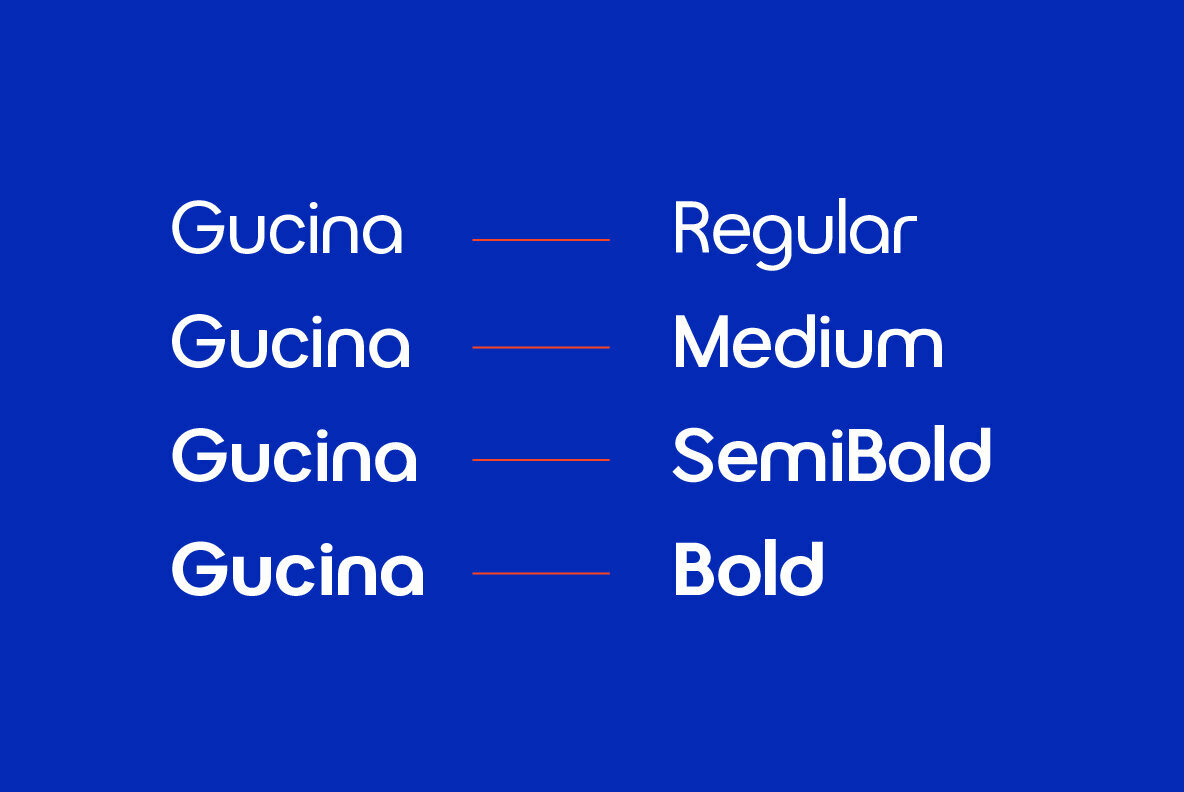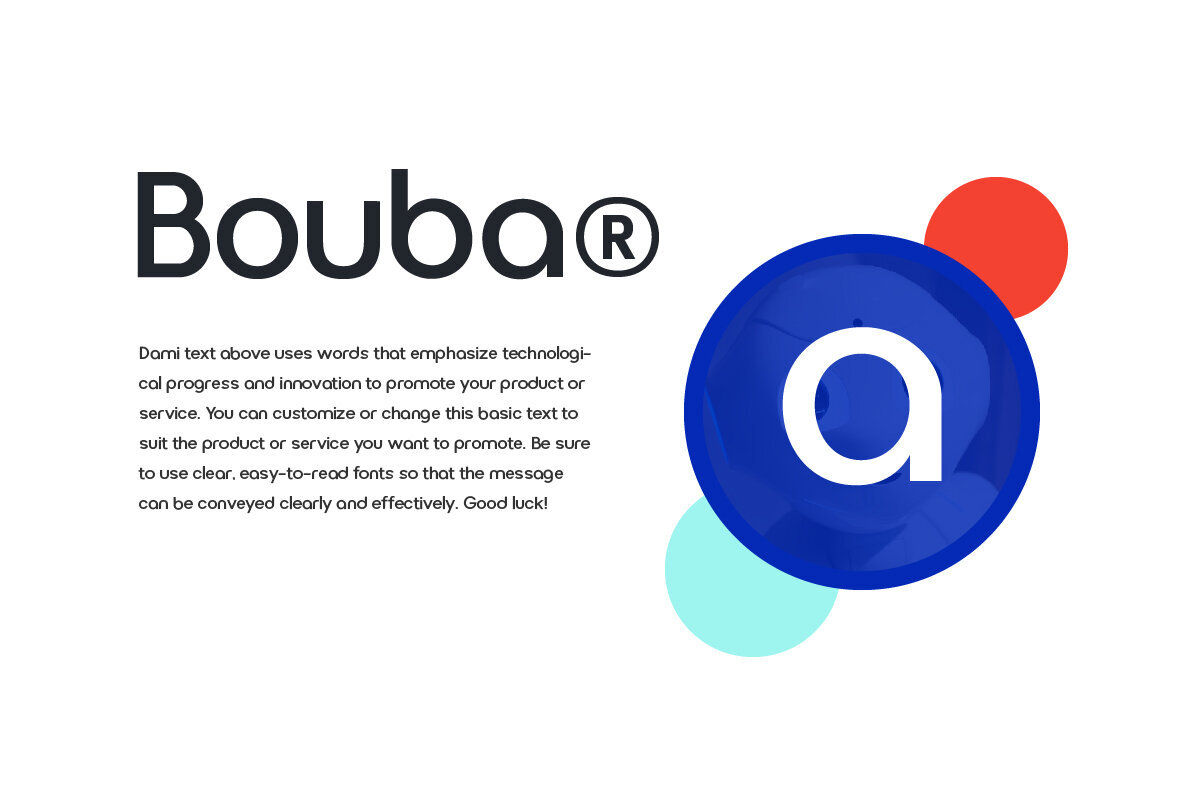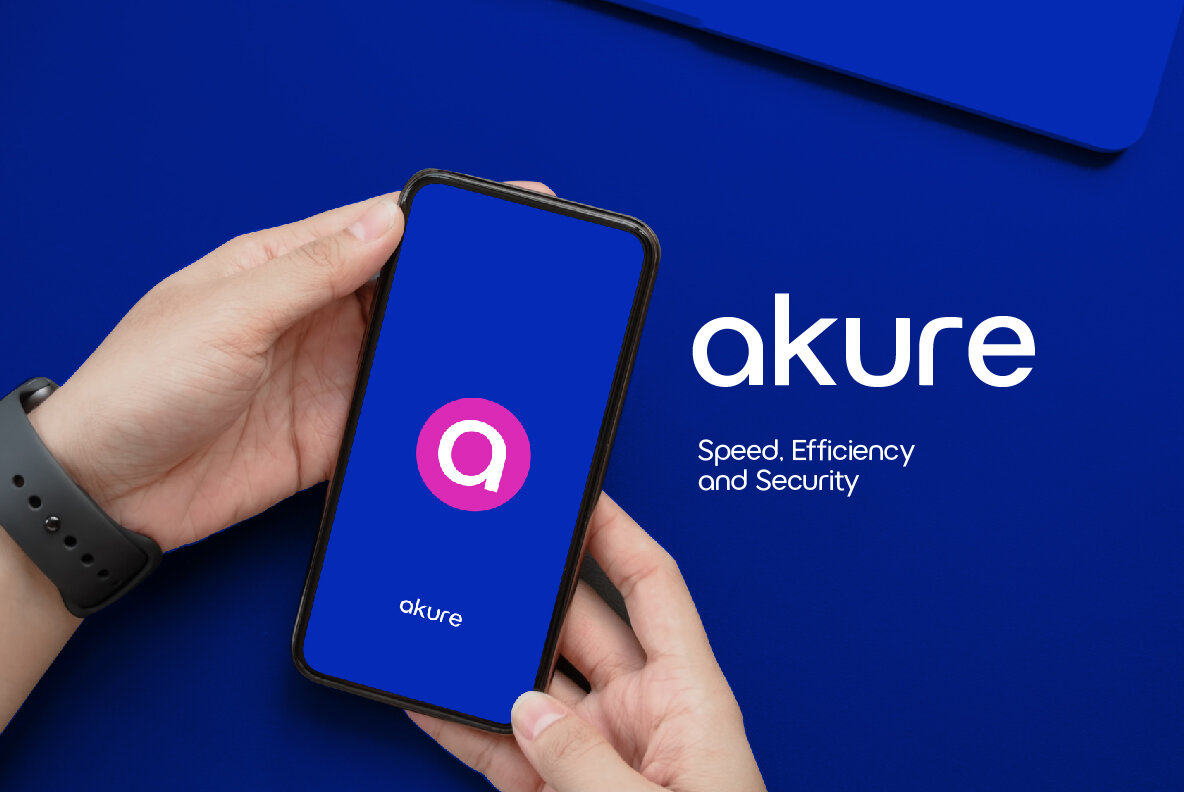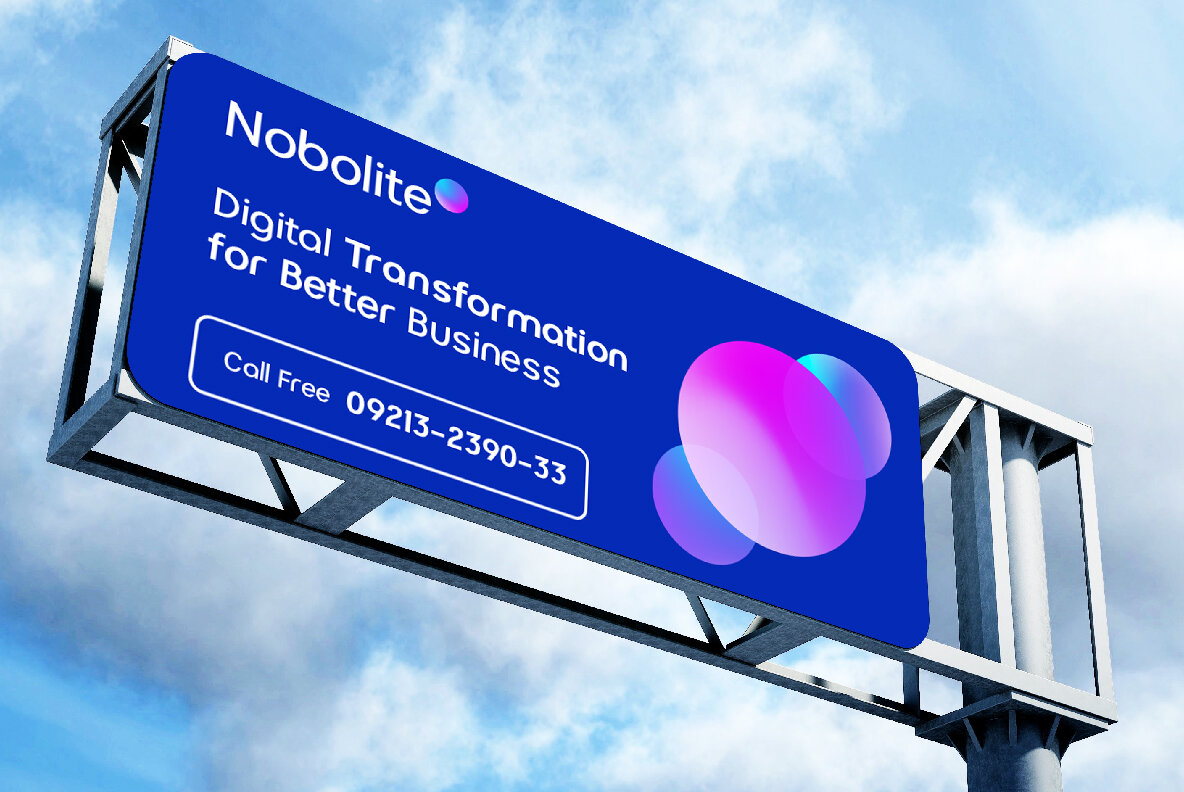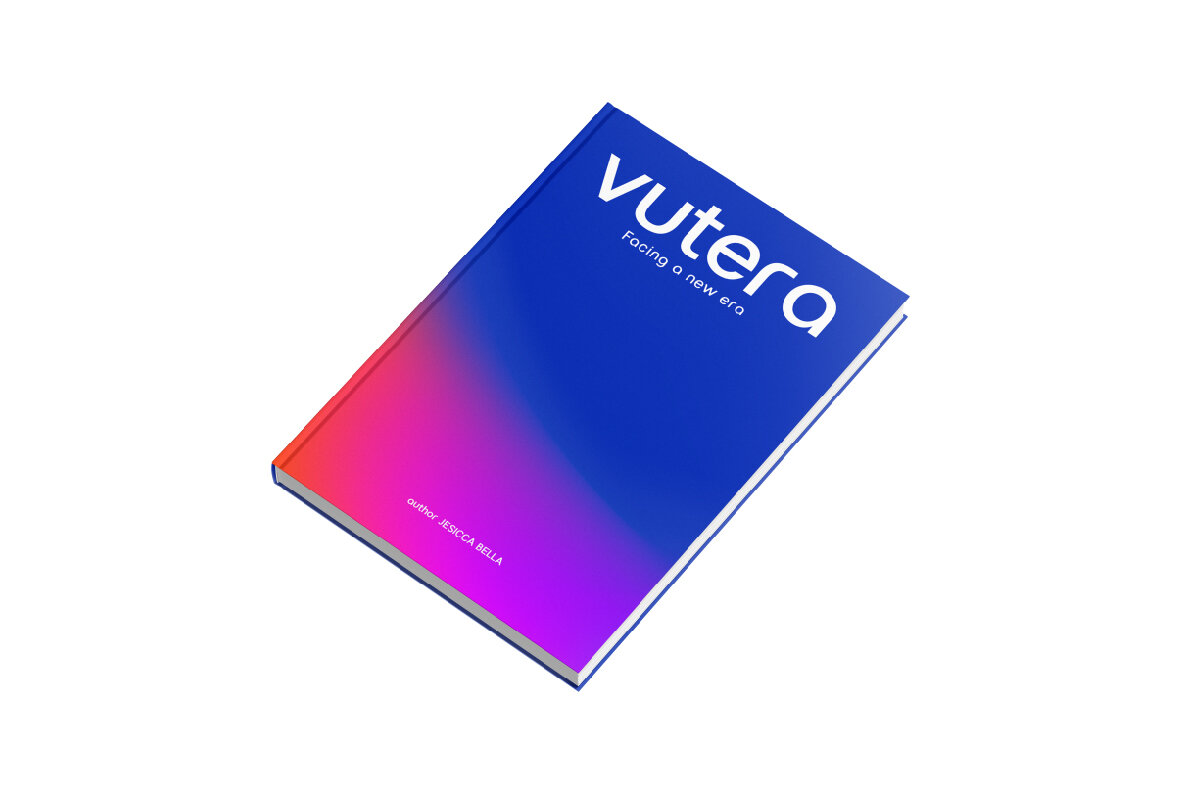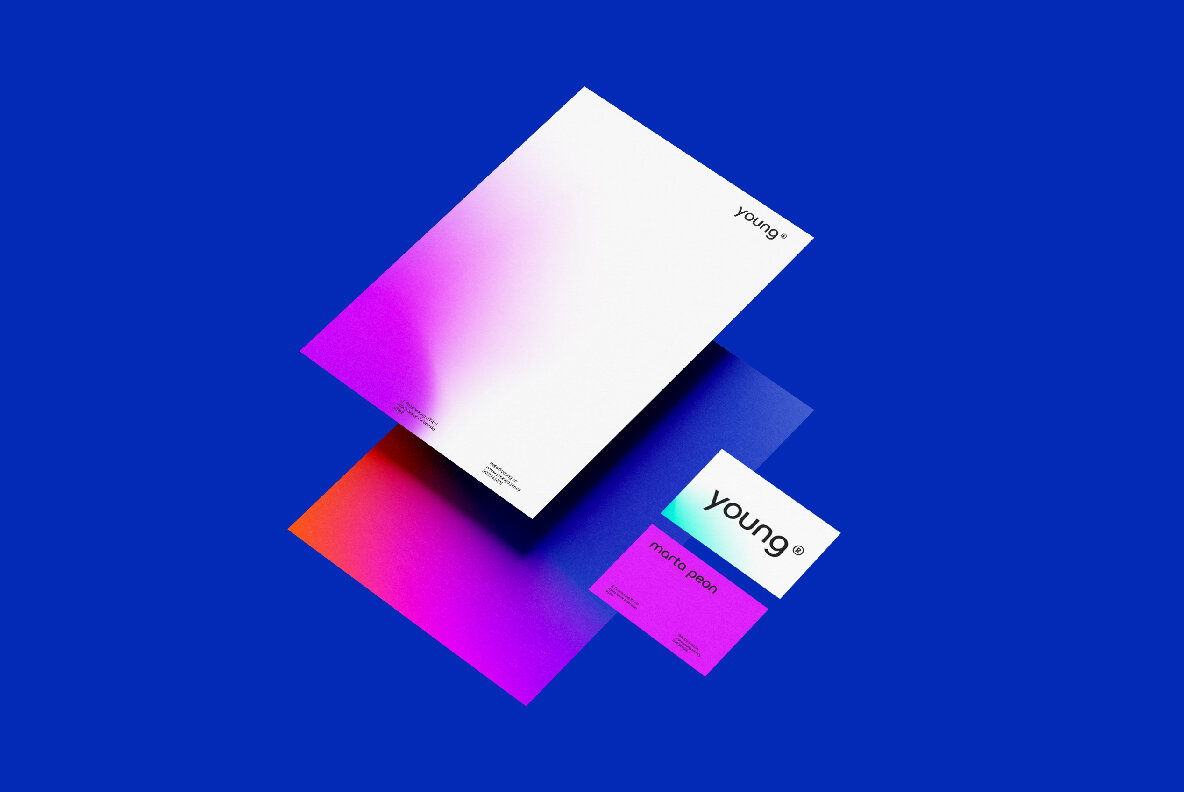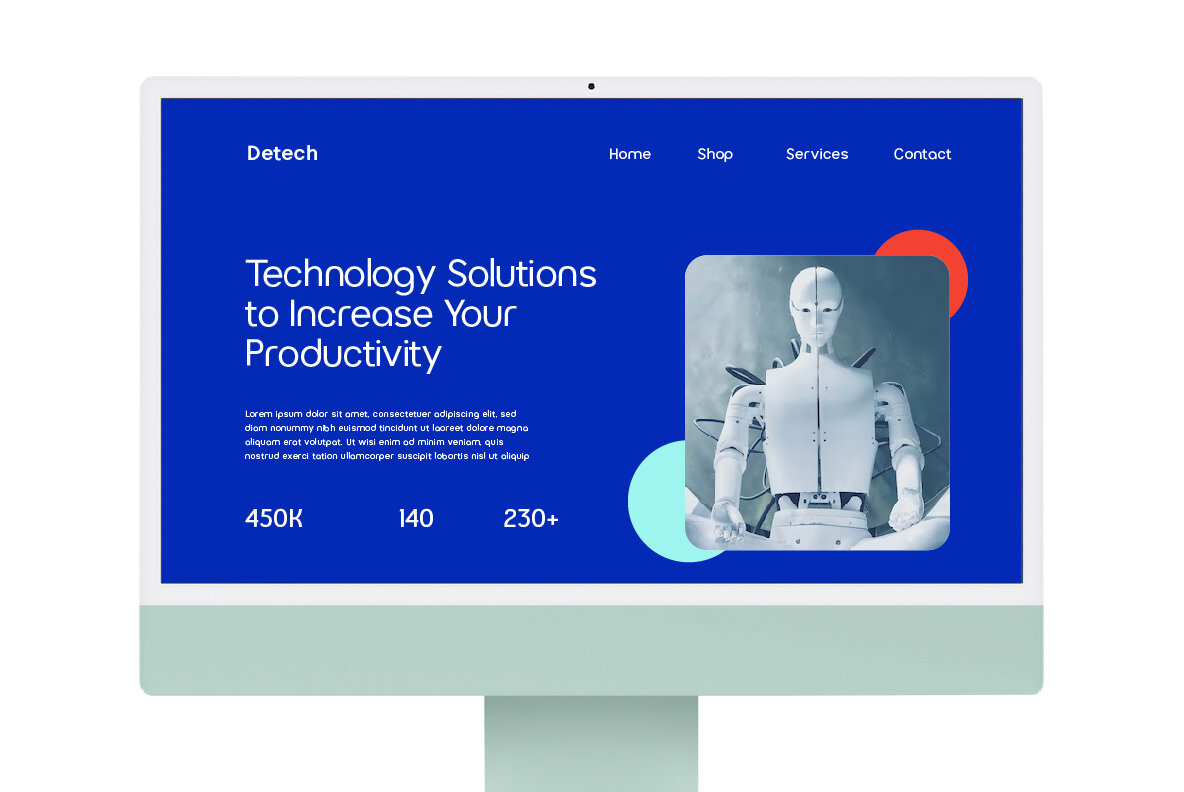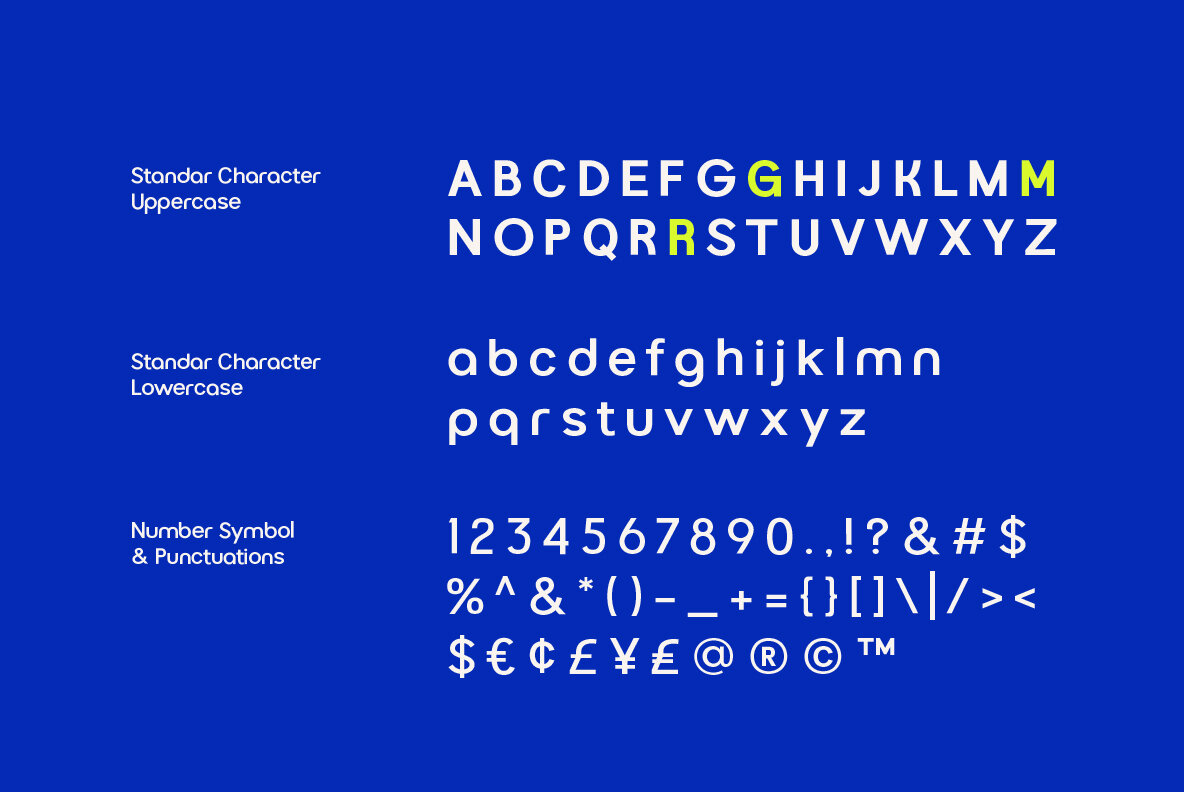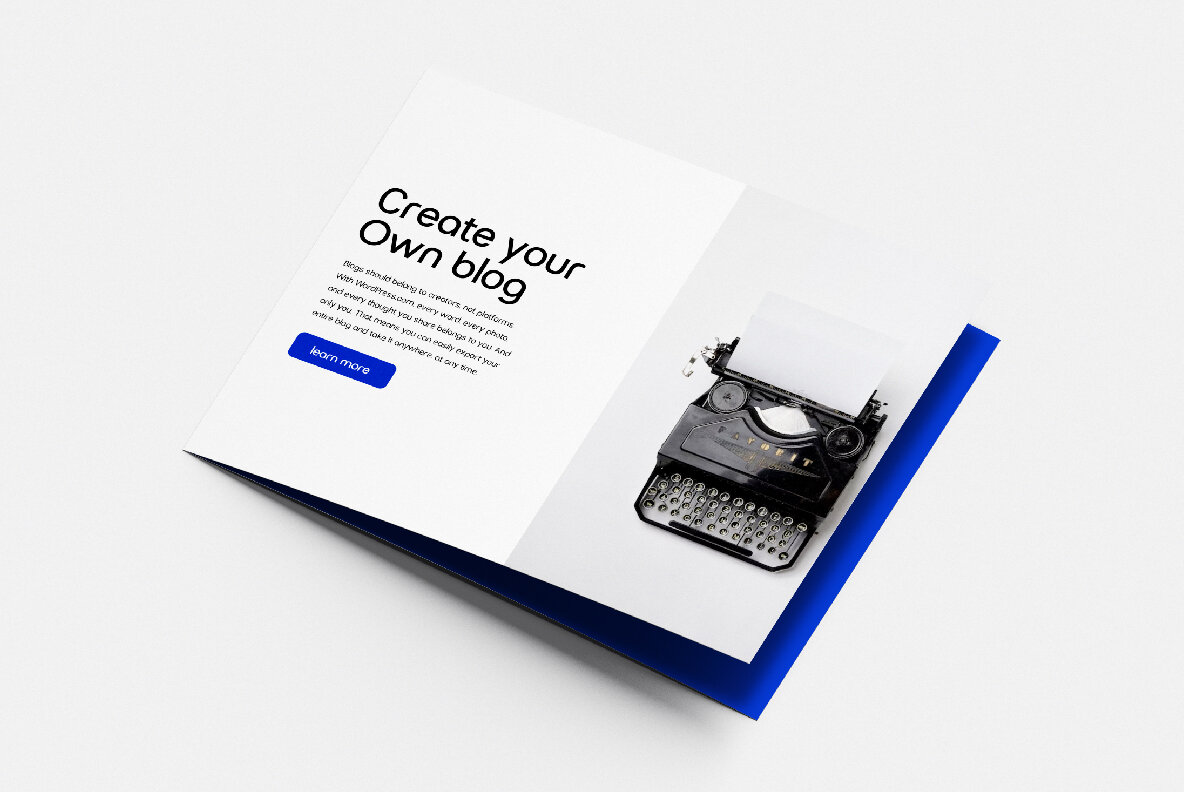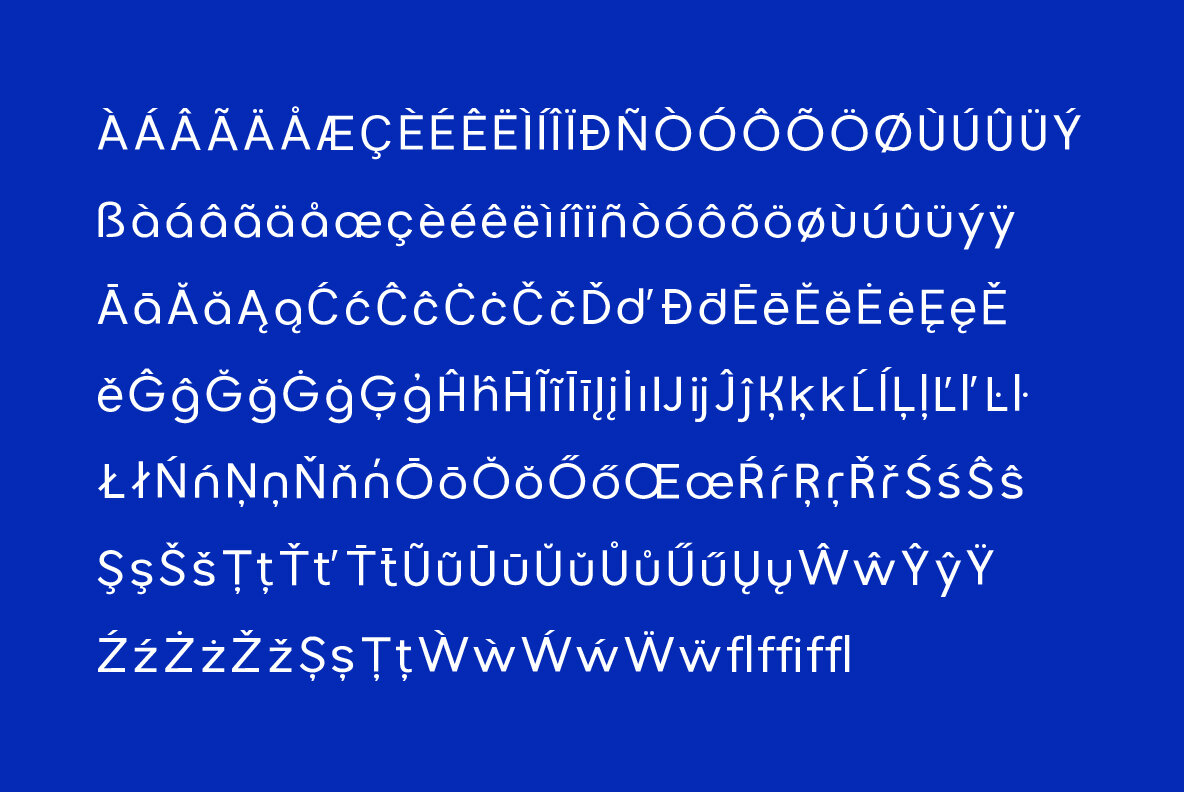
Gucina Font
Introducing the elegant and modern Gucina Geometric Font Family - a versatile typeface that will add a touch of sophistication to your designs. With its clean lines and geometric shapes, this font type is perfect for creating minimalistic logos, advertisements, web designs, and branding materials.
The Gucina Geometric Font Family comes in a variety of weights, making them ideal for a variety of design projects. Whether you need a bold and impactful font for titles, or a light and airy font for body text, Gucina has you covered.
Its timeless design ensures that your creations will remain relevant and stylish for years to come.